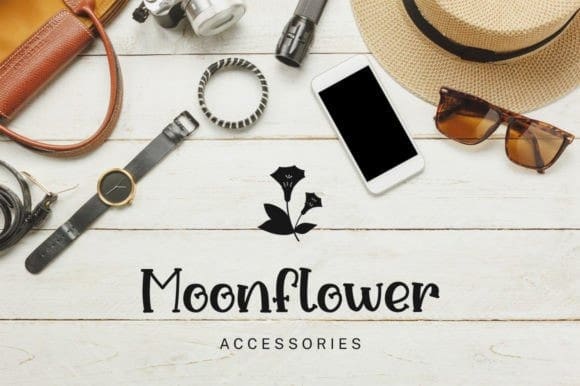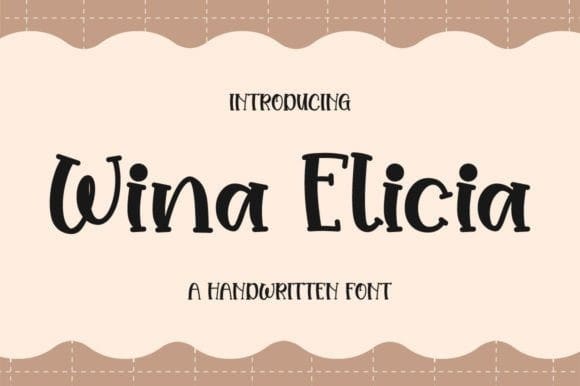
Wina Elicia Font
Wina Elicia Font is a fun and cute-looking serif font. It looks lovely on invitations, thank you cards, quotes, greeting cards, logos, business cards, and every other design which needs a friendly touch.